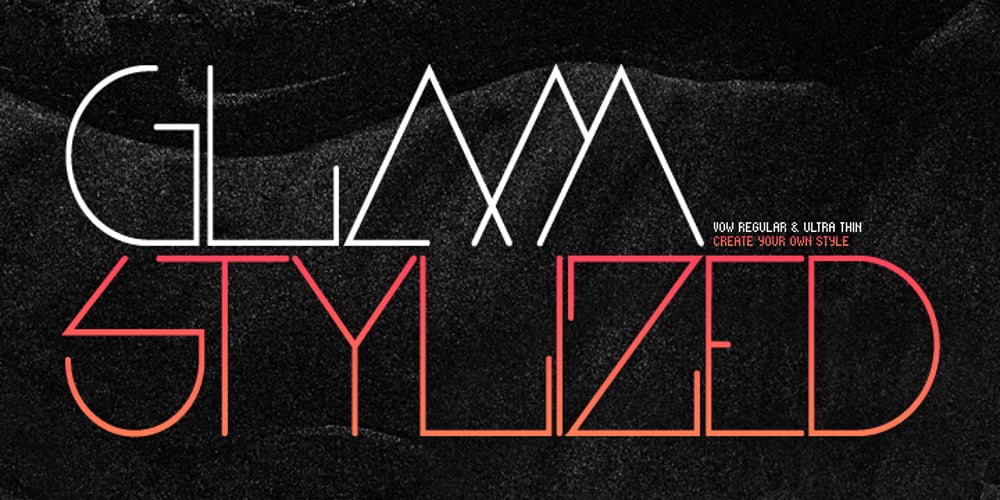
Vow Font Family was designed by published by HyperFluro. Vow contains 2 styles and family package options. Vow is an incredibly stylised font, strutting its stuff on the typography catwalk. Vow does everything to excess, even when cutting down: where it’s curvy, it’s very curvy, but where it’s thin, it’s thin. Vow’s regular weight has a certain boldness at text size, but its ultra-thin alternative is much better used at larger sizes, managing to take up very little space even when scaled up. Using a mix of the two creates a subtle emphasis, especially when coloured, which helps to create stunning messages in elegant ways.